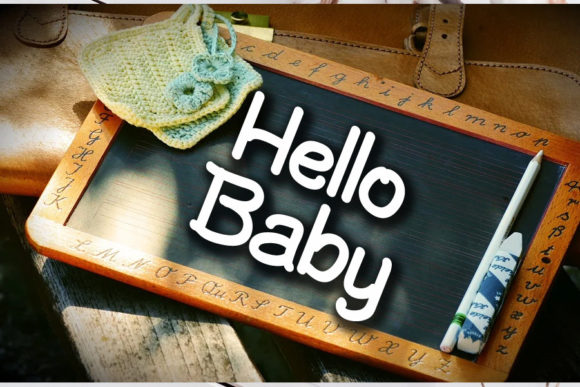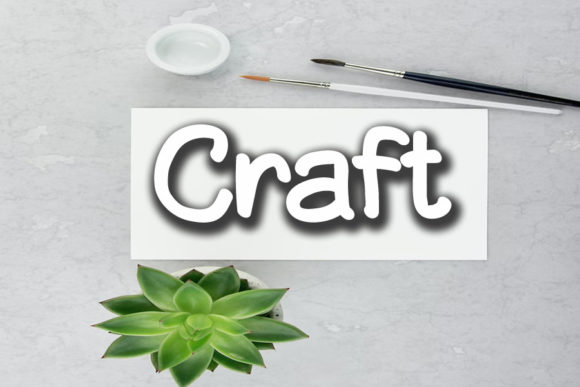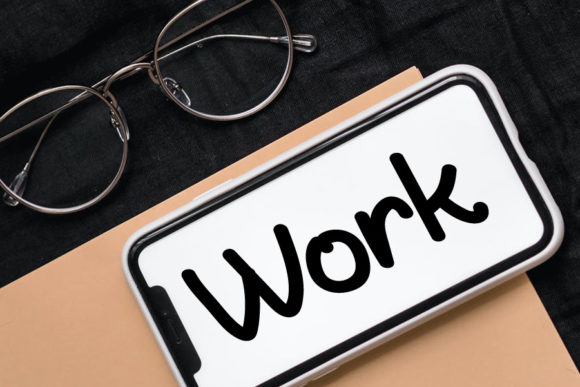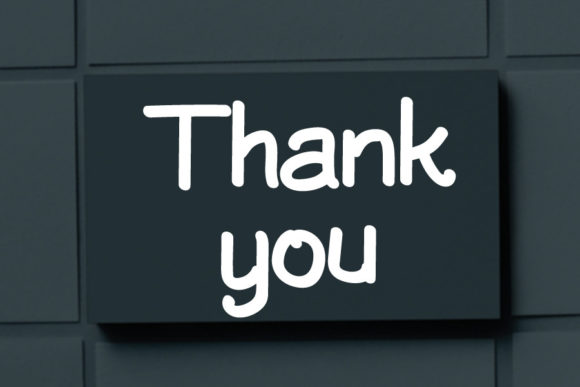
Hello Boho Font
Introducing “Hello Boho,” a fresh and beautiful font designed to elevate your creative projects to new heights. With its elegant and versatile style, Hello Boho is perfect for a wide range of design purposes, including YouTube banners, cover logos, wedding invitations, ID cards, flyers, crafts, and more.
This font embodies a sense of sophistication and charm, making it ideal for businesses looking to make a lasting impression. Whether you’re promoting your brand online, inviting guests to a special event, or creating eye-catching marketing materials, Hello Boho adds a touch of elegance to every project.
With its simplicity and uniqueness, Hello Boho stands out from the crowd, ensuring that your designs leave a lasting impact on your audience. Its clean lines and graceful curves exude a sense of modernity and refinement, making it a versatile choice for any design endeavor.
Experience the transformative power of Hello Boho and watch as your business progresses and develops with each stunning design. Let its beauty and elegance inspire you to reach new heights of creativity and success.
Unlock the potential of your designs with Hello Boho and discover the endless possibilities it offers for your business or personal projects. Whether you’re a seasoned designer or just starting out, this font invites you to explore your creativity and express yourself with style and sophistication.